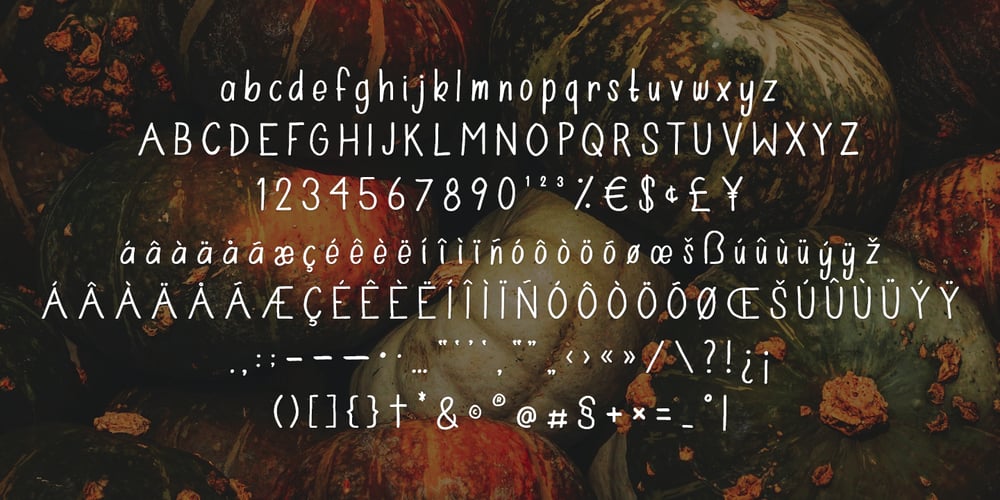
Farmer’s Marker
Farmer’s Marker font
Farmer’s Marker Font Family was designed by Tom Forsyth and published by Citrus Branding. Farmer’s Marker contains 1 styles and family package options. Farmer’s Marker is an ode to the hobby-farmer and their honest and hardworking (but not too serious) lifestyle. The font reflects a vision of a farmer who quickly scrawls down her produce (72 Eggs + 20L of Milk + 2kg Honey) before she heads off to the market to do her best to sell what she has farmed. It is a casual, freehand, marker script that doesn’t take itself too seriously. It is hand drawn by me, then meticulously perfected in Illustrator while leaving in just enough small imperfections that the font retains it’s humanistic, hand-drawn and personal feel. The font will lend itself perfectly to rustic restaurant menu’s, organic branding and packaging, social media content, child-centric design, travel posters, humanitarian organisations and much more.